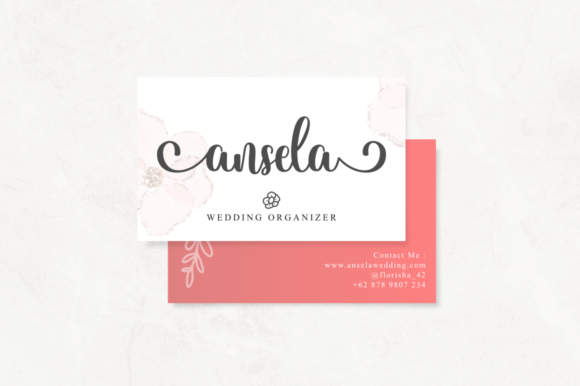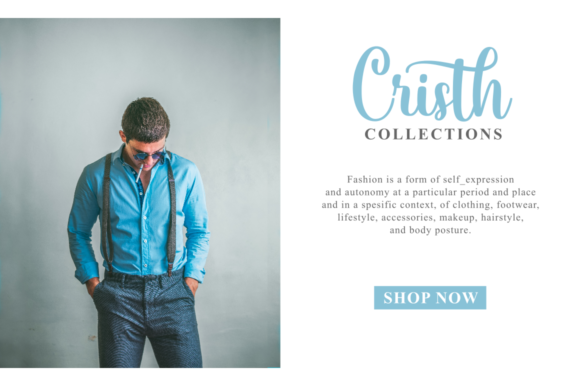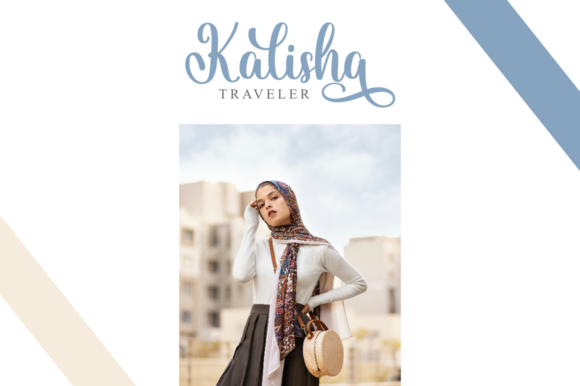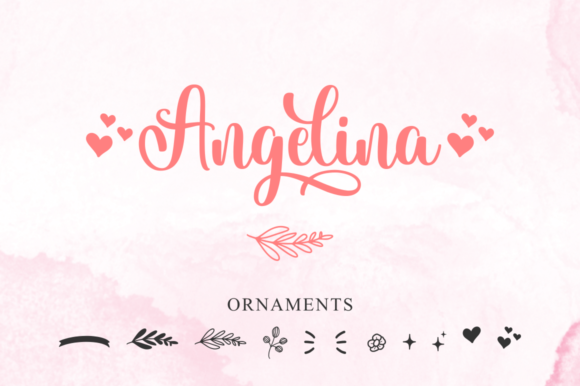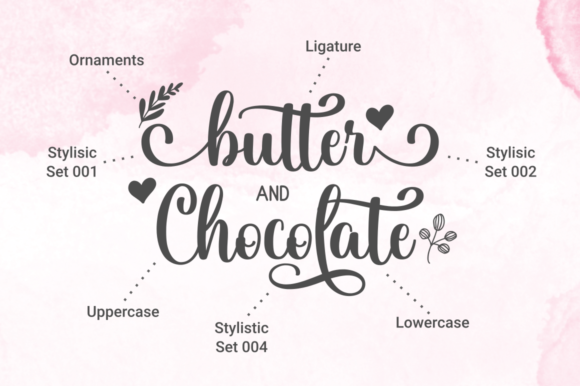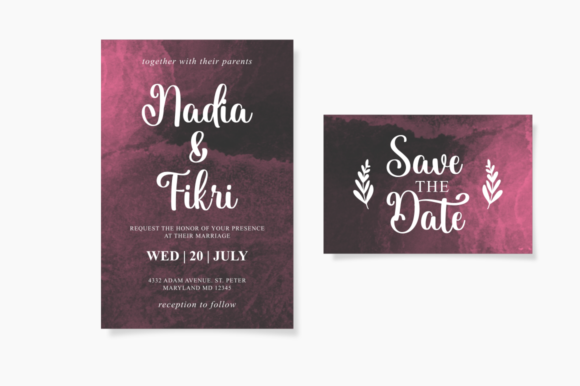
Introduction to Hello Anita Font
Have you ever been working on a creative project, pouring your heart and soul into it, only to realize that the right font can make all the difference? That’s where Hello Anita Font comes in – a lovely script font that adds a touch of magic to any design. Its charming, playful characters seem to dance along the baseline, making it the perfect choice for designers who want to add a little extra something to their work.
As a valuable resource for designers, Hello Anita Font is not only high quality but also free to download, making it accessible to creatives of all levels. With its PUA encoding, you can easily access all of the amazing glyphs and ligatures, allowing you to get creative with your designs. Whether you’re working on a project that requires a transparent background or just want to add some personality to your designs, Hello Anita Font is a design resource that’s sure to impress.
- High-quality design for a creative project: Hello Anita Font is designed to meet the needs of designers and artists looking for a unique and stylish font.
- Unique characteristics: The font features a unique blend of modern and vintage elements, making it an excellent choice for designers looking to add a touch of personality to their creative project.
Honest Review: Hello Anita Font
As a designer, I’m always on the lookout for high-quality design resources to elevate my creative projects. Recently, I stumbled upon the Hello Anita Font, and I must say it’s been a game-changer. ✨
- Unique style: The font’s playful, cursive script is perfect for adding a touch of elegance to my designs.
While the Hello Anita Font is an excellent addition to my design arsenal, there are a few limitations to keep in mind: ⚠️
- Limited language support: The font may not be suitable for designs that require extensive language support.
- Not ideal for small text: The font’s large x-height can make it difficult to read in smaller text sizes.
Overall, I’m impressed with the Hello Anita Font’s quality and versatility. It’s a fantastic design resource that I’ll continue to use in my creative projects.
Hello Anita Font
The Hello Anita Font is a free download, high-quality design resource ideal for any creative project. With its transparent background, this font is perfect for adding a touch of elegance to your designs.
The Hello Anita Font is commonly used in wedding invitations, birthday cards, and other creative projects where a touch of elegance is required. It’s also great for creating a professional-looking logo or branding material.